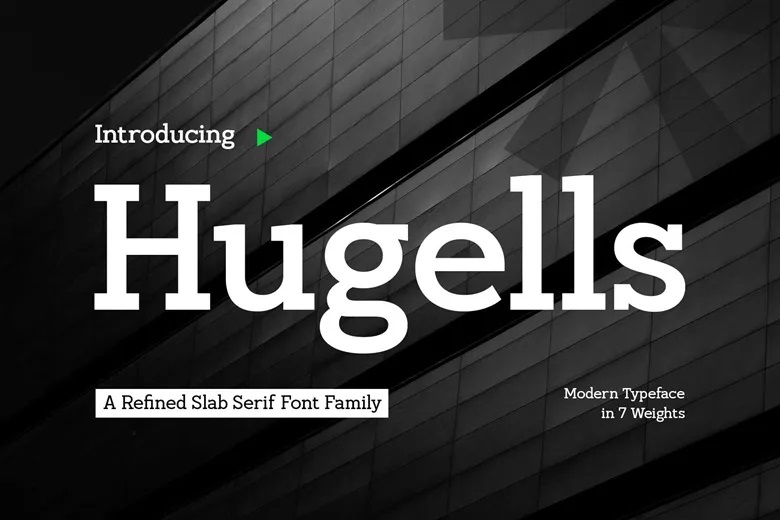
Hugells Font
Hugells is a modern slab-serif typeface family with 7 weights, designed to give your work a strong, polished look. Its bold serifs, balanced proportions, and clean lines help create a confident, professional feel.
Hugells works well for digital and print projects, including branding, editorials, posters, logos, packaging, and modern UI design.
Hugells Slab Serif Font